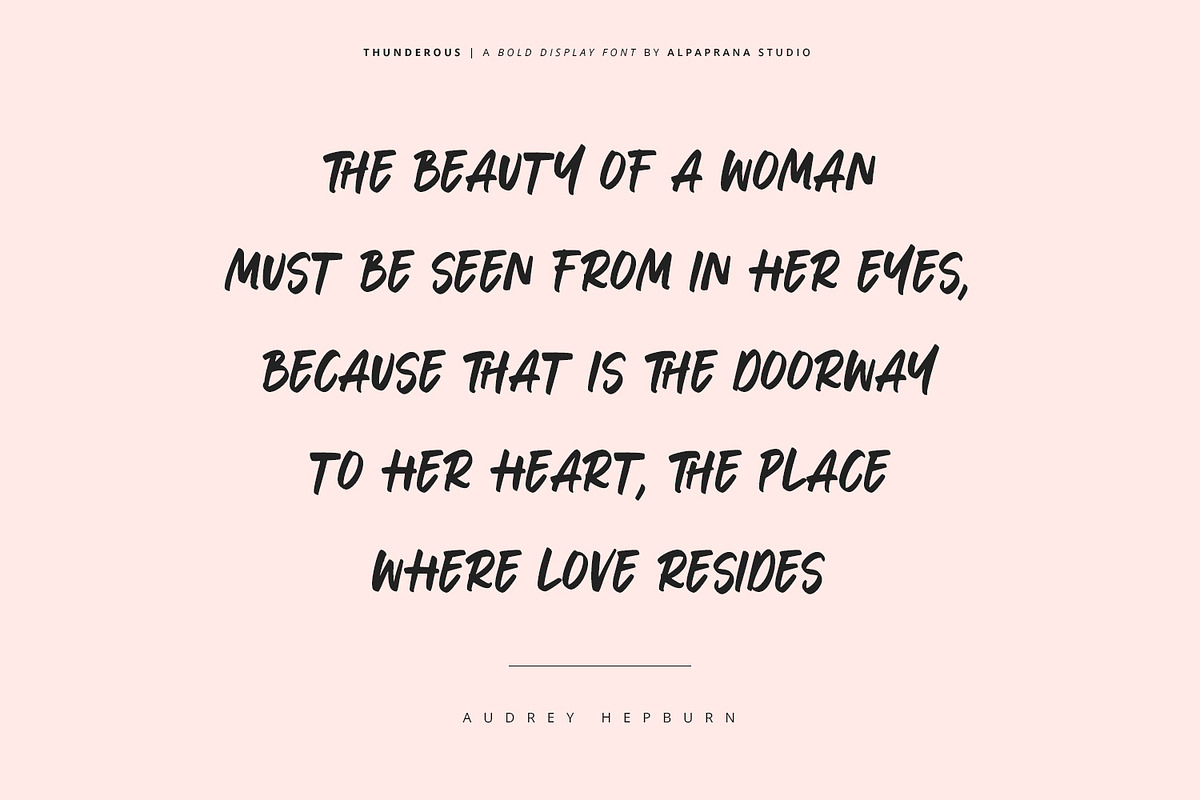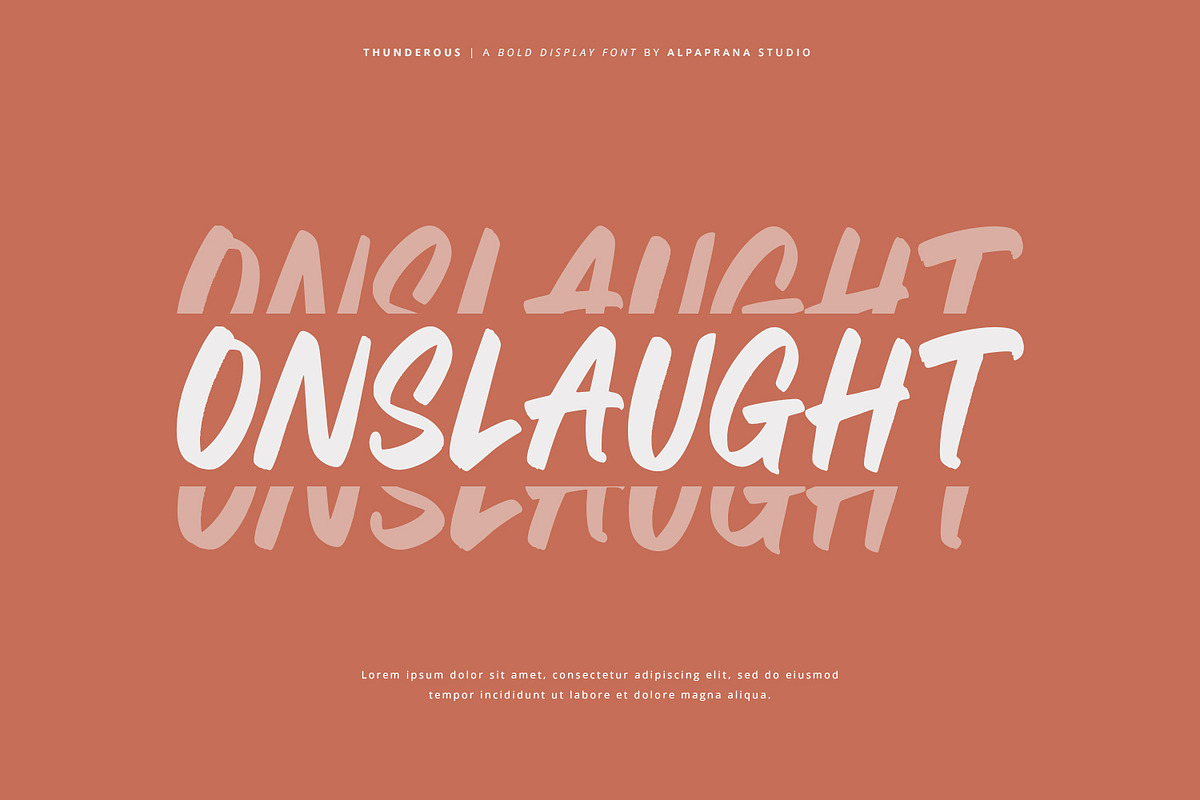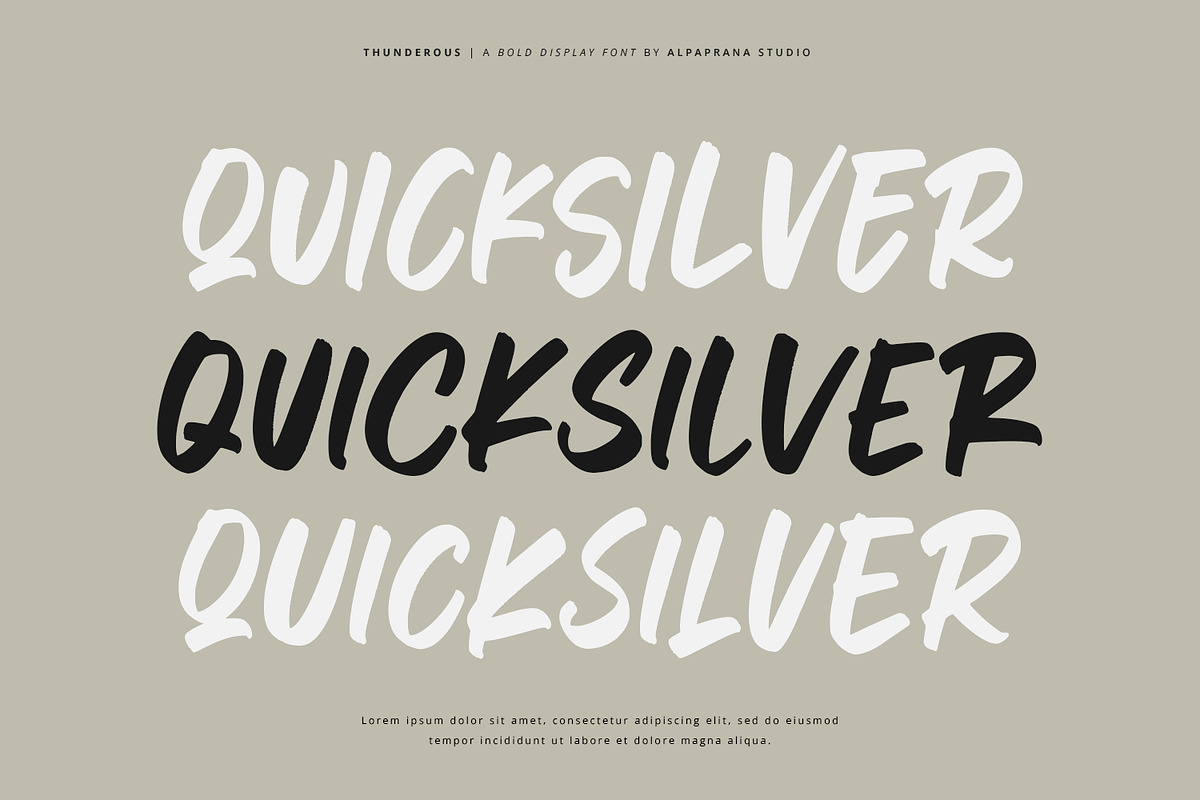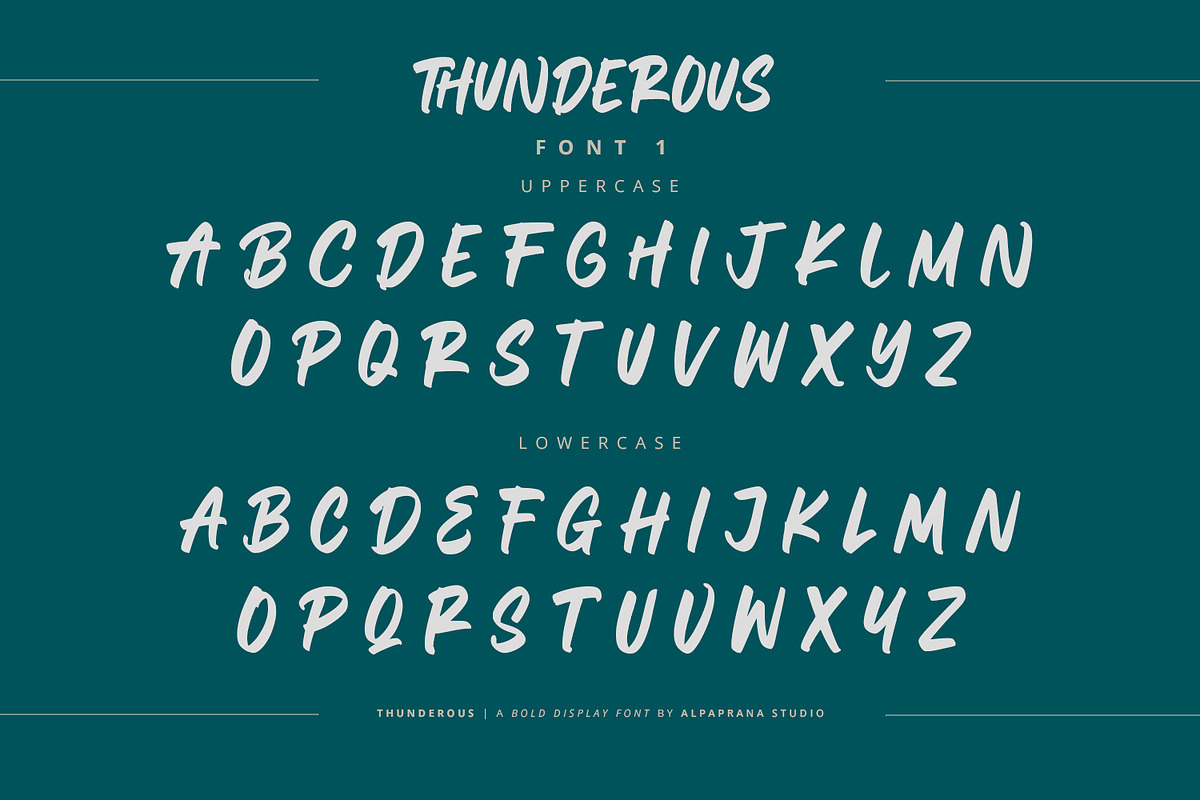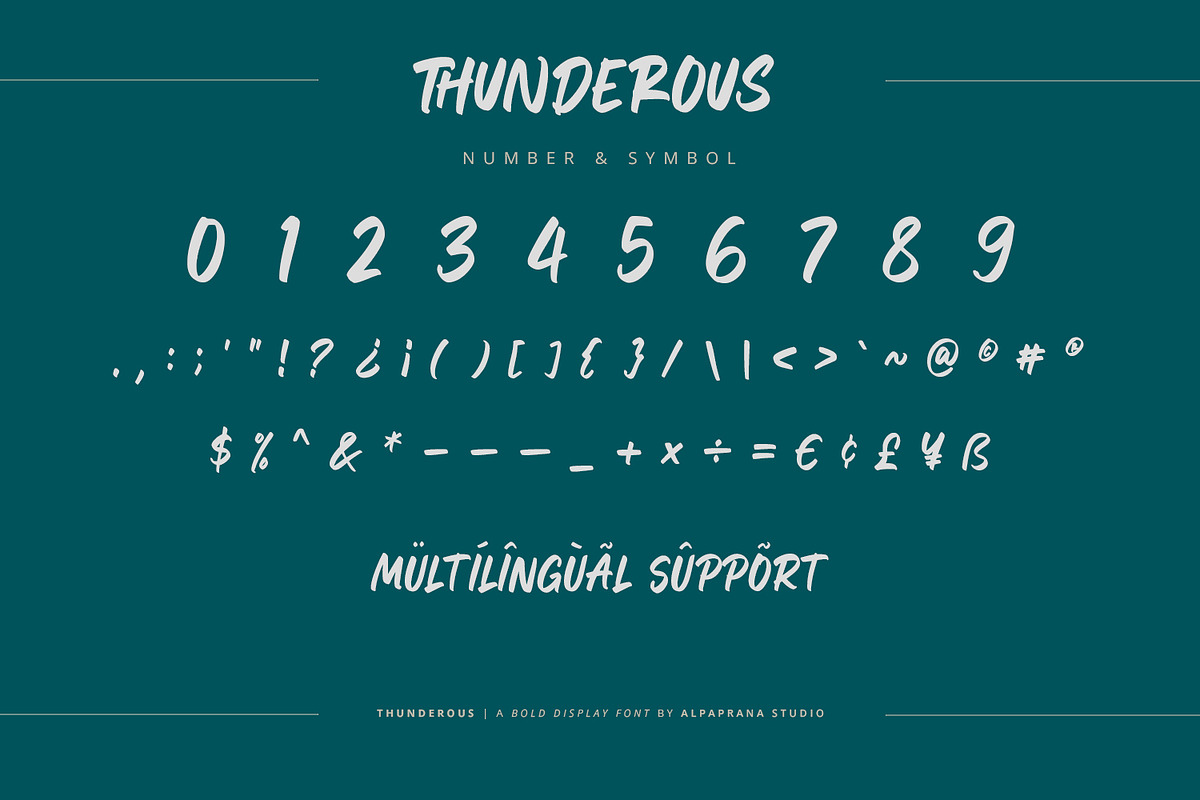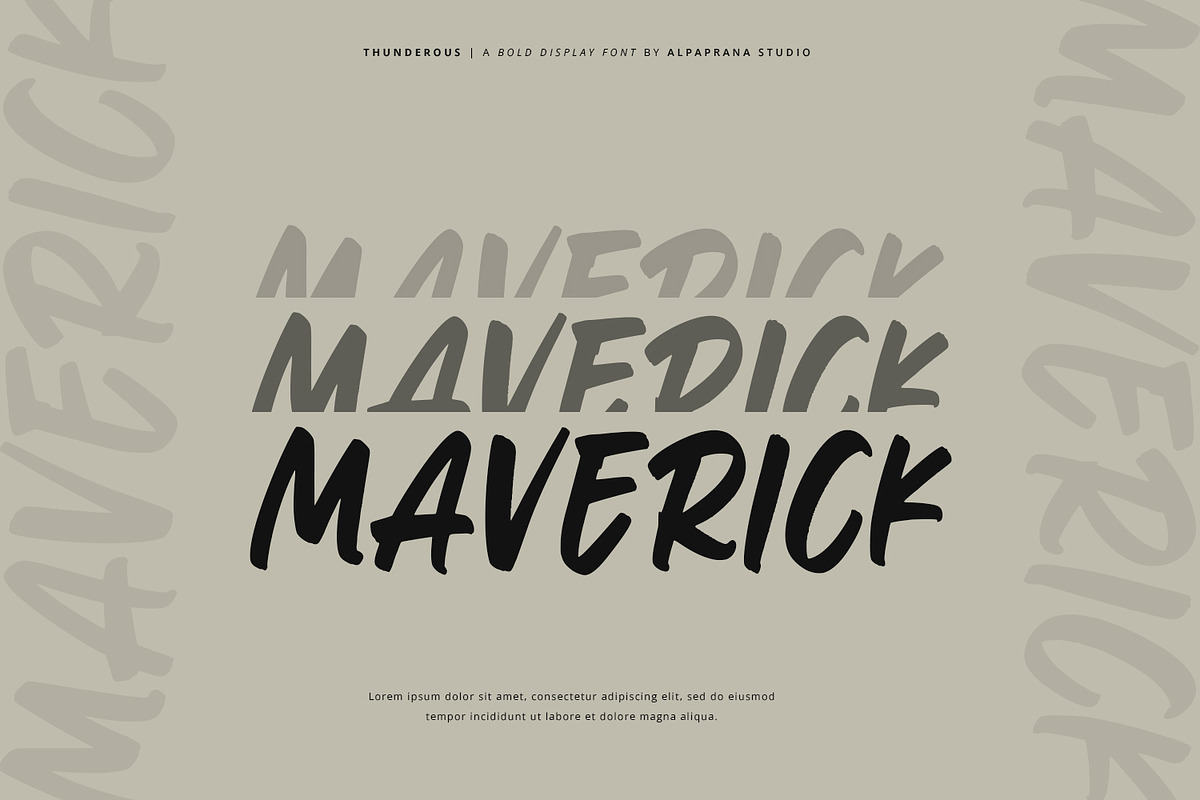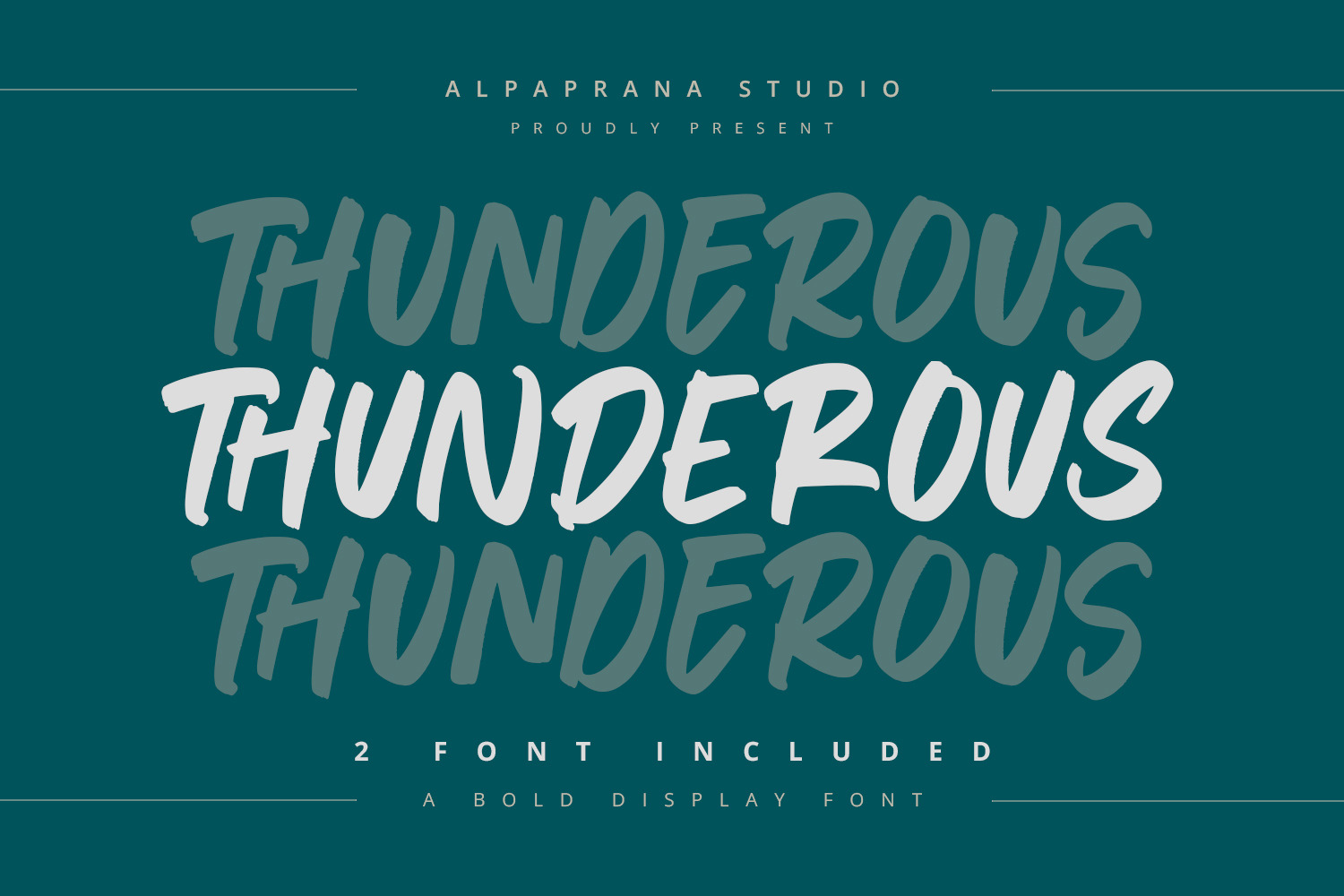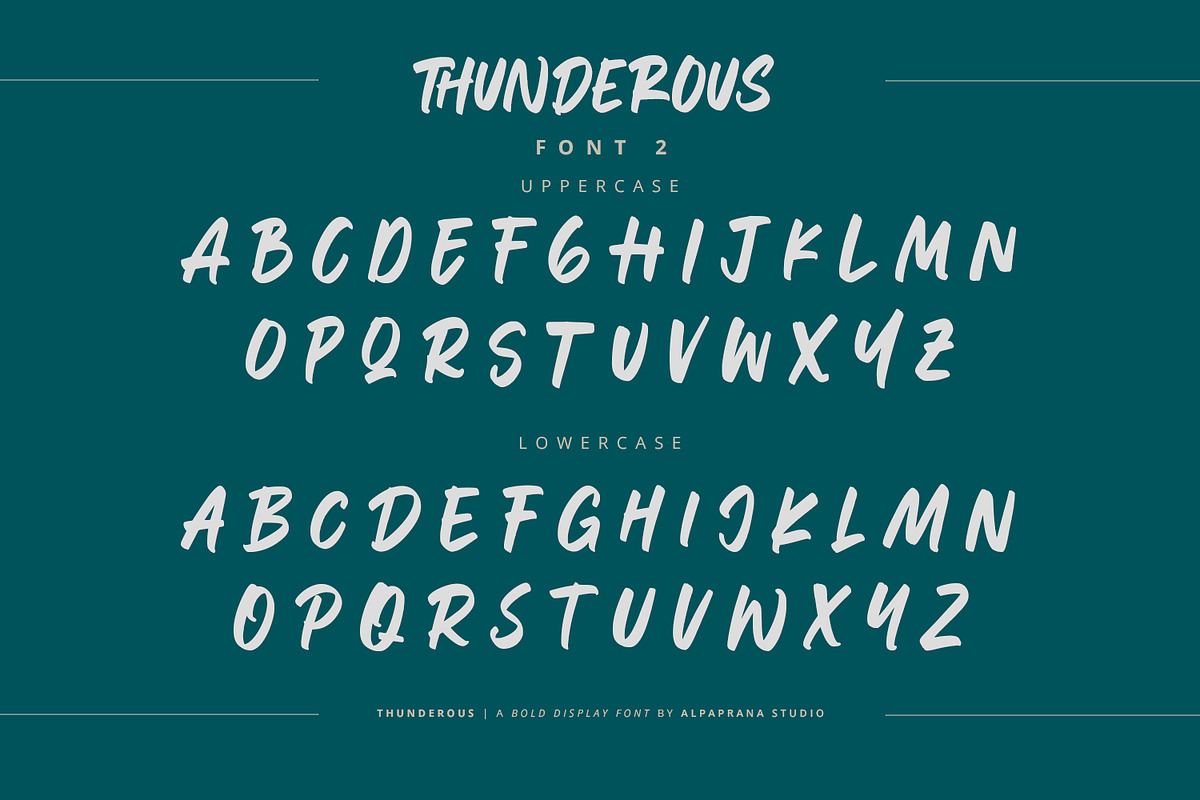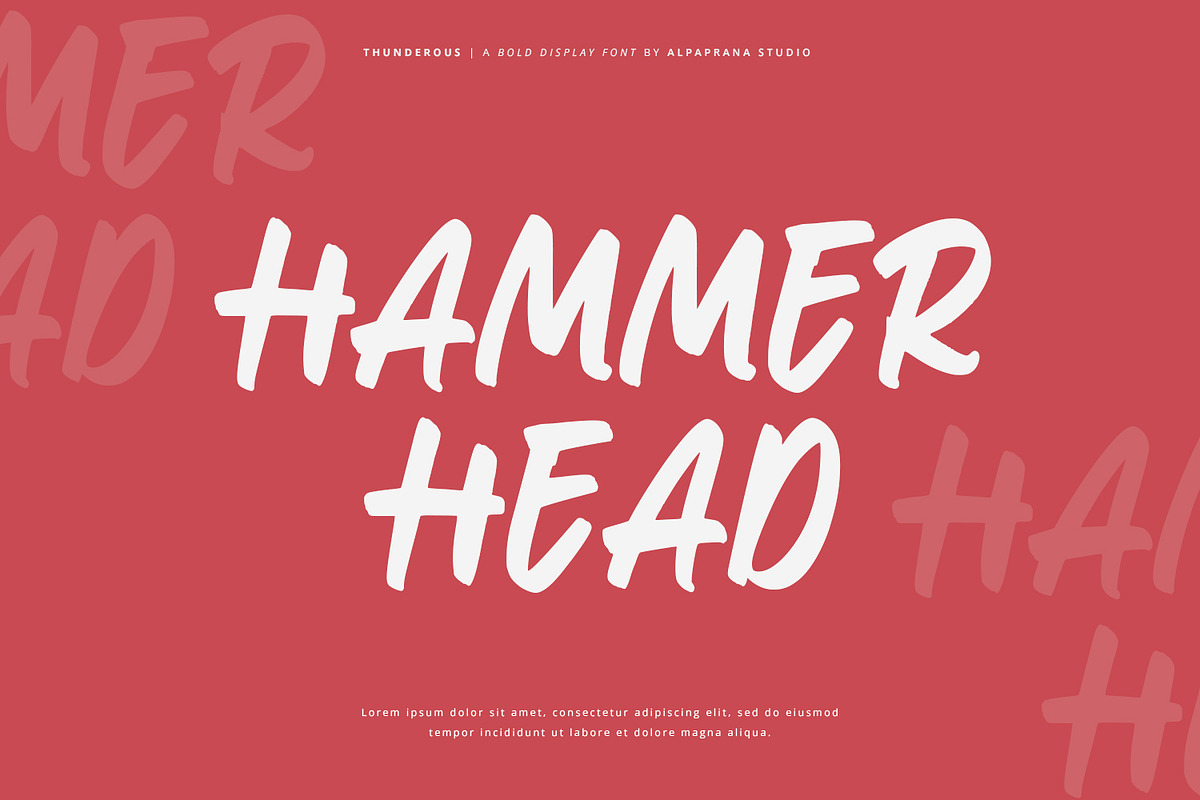
Thunderous - Bold Display Font
Thunderousis a bold display font with natural and modern feels. It will be perfectly used for Branding, Logo Design, Lettering, Logotype, Clothing, Poster, magazine, packaging, posters, shopping bags, t-shirts, book covers, photography, special events and other design project.